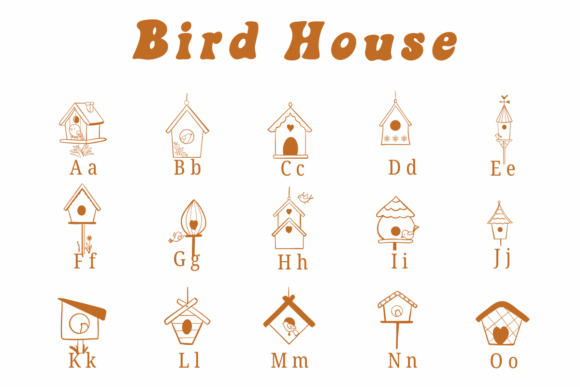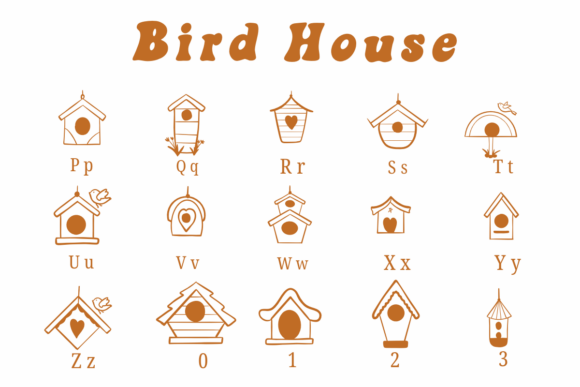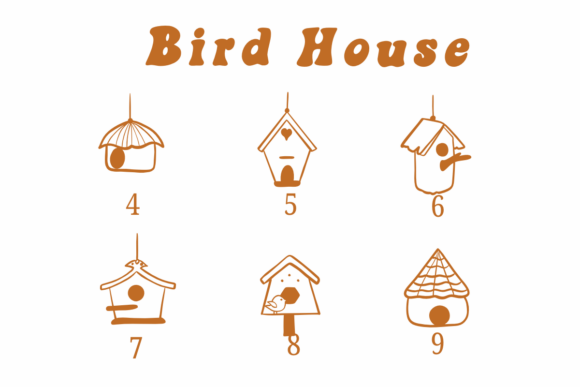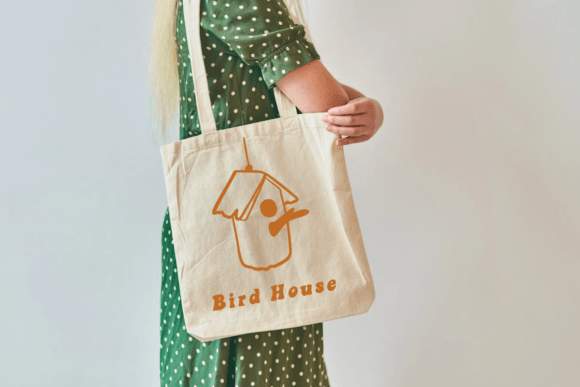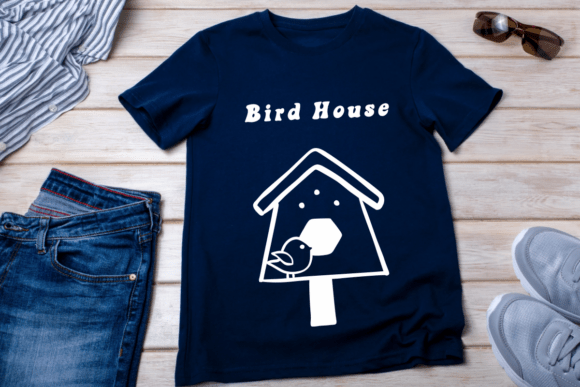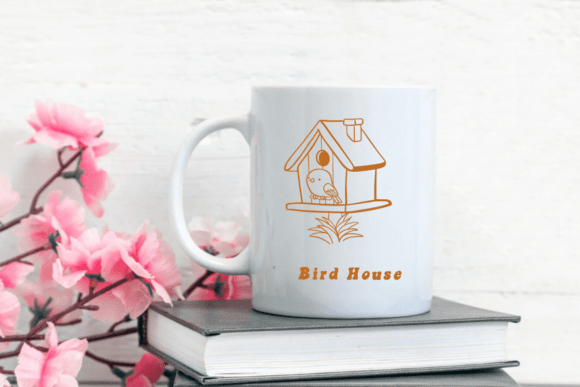
Bird House Font: Elevate Your Creative Projects with a Charming Dingbats Font
Are you a designer, crafter, or DIY enthusiast looking for a unique and versatile font to enhance your creative projects? Look no further than the Bird House font, a beautiful dingbats font with a sketched style that’s perfect for a wide range of applications. In this article, we’ll explore the features and benefits of the Bird House font, and show you how it can elevate your wedding invitations, DIY projects, crafts, decorations, logos, and many other creative ideas.
What is Bird House Font?
Bird House is a dingbats font that features a charming, hand-sketched style. The font is designed to resemble illustrations, with each character and symbol carefully crafted to give your projects a personal, homemade feel. With its unique and whimsical design, Bird House font is perfect for adding a touch of personality to your creative projects.
Key Features of Bird House Font
- Unique Sketched Style: The Bird House font features a distinctive, hand-sketched style that’s perfect for adding a personal touch to your projects.
- Dingbats Font: As a dingbats font, Bird House features a wide range of illustrations and symbols, including birds, flowers, and other decorative elements.
- Versatile: The Bird House font can be used for a wide range of creative projects, from wedding invitations and DIY crafts to logos and decorations.
Creative Ways to Use Bird House Font
The Bird House font is incredibly versatile, and can be used in a wide range of creative projects. Here are a few ideas to get you started:
Wedding Invitations
Make your wedding invitations truly special with the Bird House font. The font’s charming, hand-sketched style is perfect for creating beautiful, one-of-a-kind invitations that will set the tone for your big day.
DIY Crafts
The Bird House font is perfect for DIY crafters who want to add a personal touch to their projects. Use the font to create custom signs, decorations, and other handmade items that are sure to impress.
Decorations
Add a touch of personality to your home or office with decorations featuring the Bird House font. From wall art to table runners, the font’s charming illustrations and symbols are sure to add a unique and whimsical touch to any room.
Logos and Branding
The Bird House font is also perfect for logos and branding. The font’s unique, hand-sketched style can help your business stand out from the crowd, and create a memorable brand identity that will leave a lasting impression on your customers.
Tips for Using Bird House Font
Here are a few tips for getting the most out of the Bird House font:
- Experiment with Different Sizes: The Bird House font looks great in a variety of sizes, from small and delicate to large and bold. Experiment with different sizes to find the one that works best for your project.
- Combine with Other Fonts: The Bird House font pairs well with a wide range of other fonts, from simple sans serifs to elegant scripts. Try combining it with other fonts to create a unique and eye-catching design.
- Use for Headlines and Titles: The Bird House font is perfect for headlines and titles, where its bold and eye-catching design can really make an impact.
The Bird House font is a versatile and charming dingbats font that’s perfect for designers, crafters, and DIY enthusiasts. With its unique, hand-sketched style and wide range of illustrations and symbols, the font is sure to add a touch of personality to any creative project. Whether you’re creating wedding invitations, DIY crafts, decorations, logos, or other creative projects, the Bird House font is a great choice. So why not give it a try and see the difference it can make?